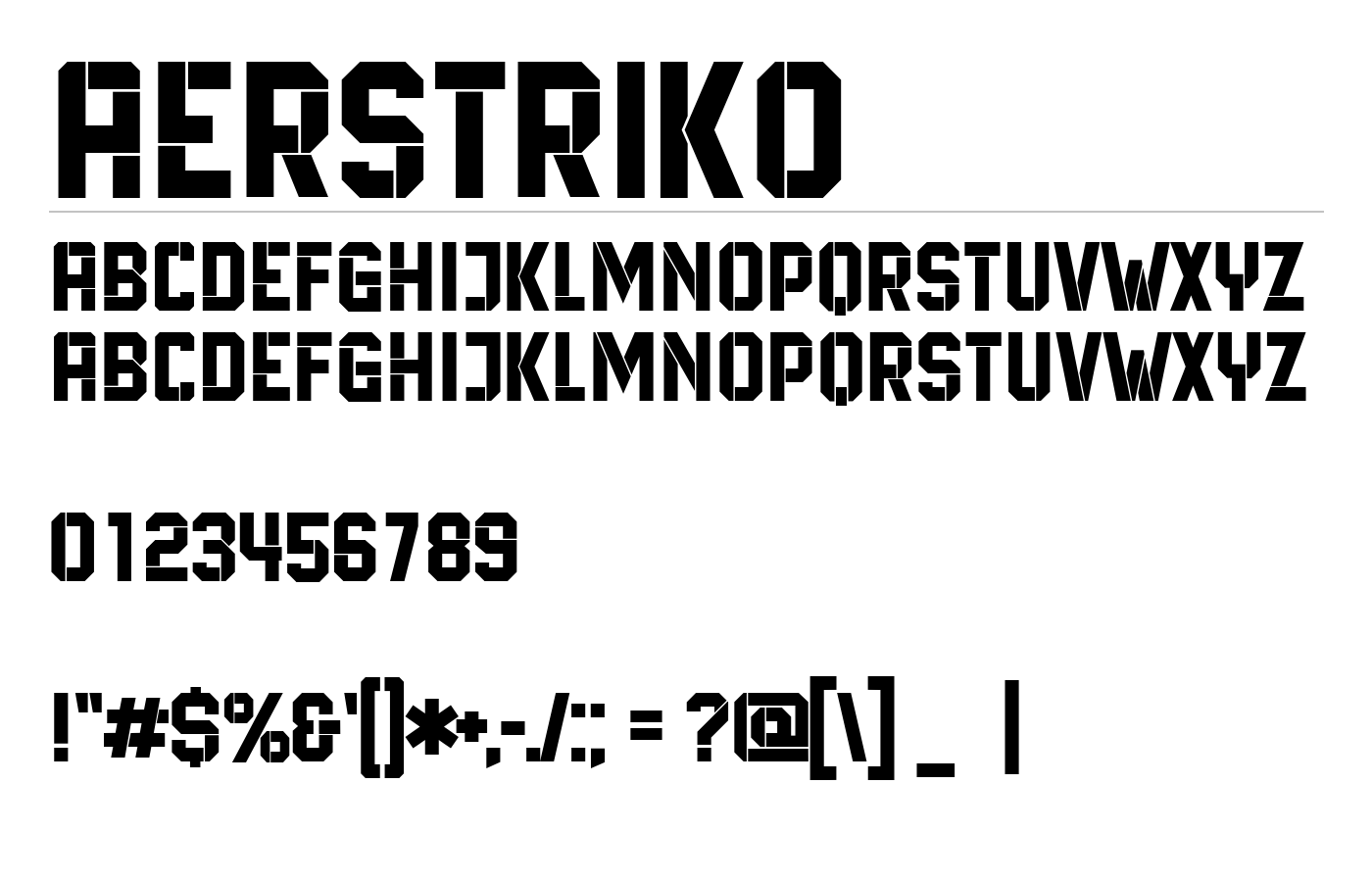
Aerstriko is a bold, condensed sans serif font with a strong geometric and stencil-inspired design, featuring sharp, angular edges and a high contrast between solid and cut-out areas. Its uppercase-only style and striking shapes give it a modern, industrial feel ideal for impactful headlines, logos, and branding in tech, sports, or futuristic themes. This font works best where a bold, attention-grabbing display typeface is needed to convey strength and modernity.
Aerstriko Font
About Aerstriko Font